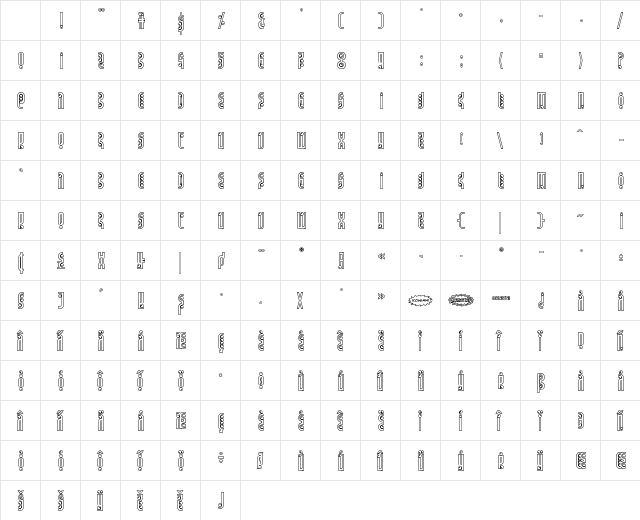
Complete Underground Rose Outline glyph index. Displaying only characters natively supported by Underground Rose Outline font.
Underground Rose Outline is built around its visual character rather than neutral utility - its distinctive forms are designed to make an impression at display sizes.
Font Pairing: Pair with a clean neutral sans-serif for body copy to let Underground Rose Outline's character lead without overwhelming the composition.
Pro Tip: Use Underground Rose Outline exclusively at display sizes - it was designed to be seen, not read at length. Let a neutral companion handle body copy.